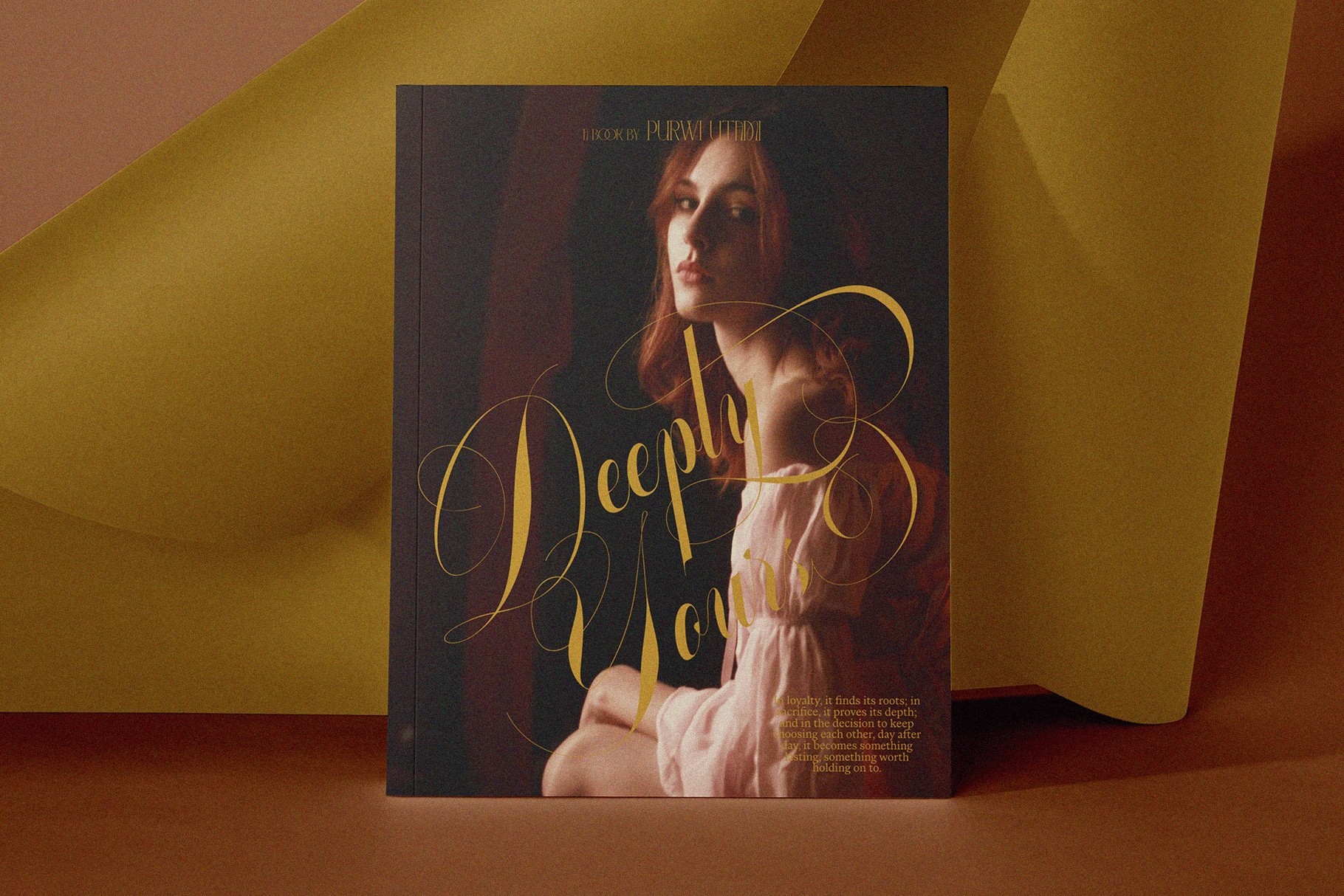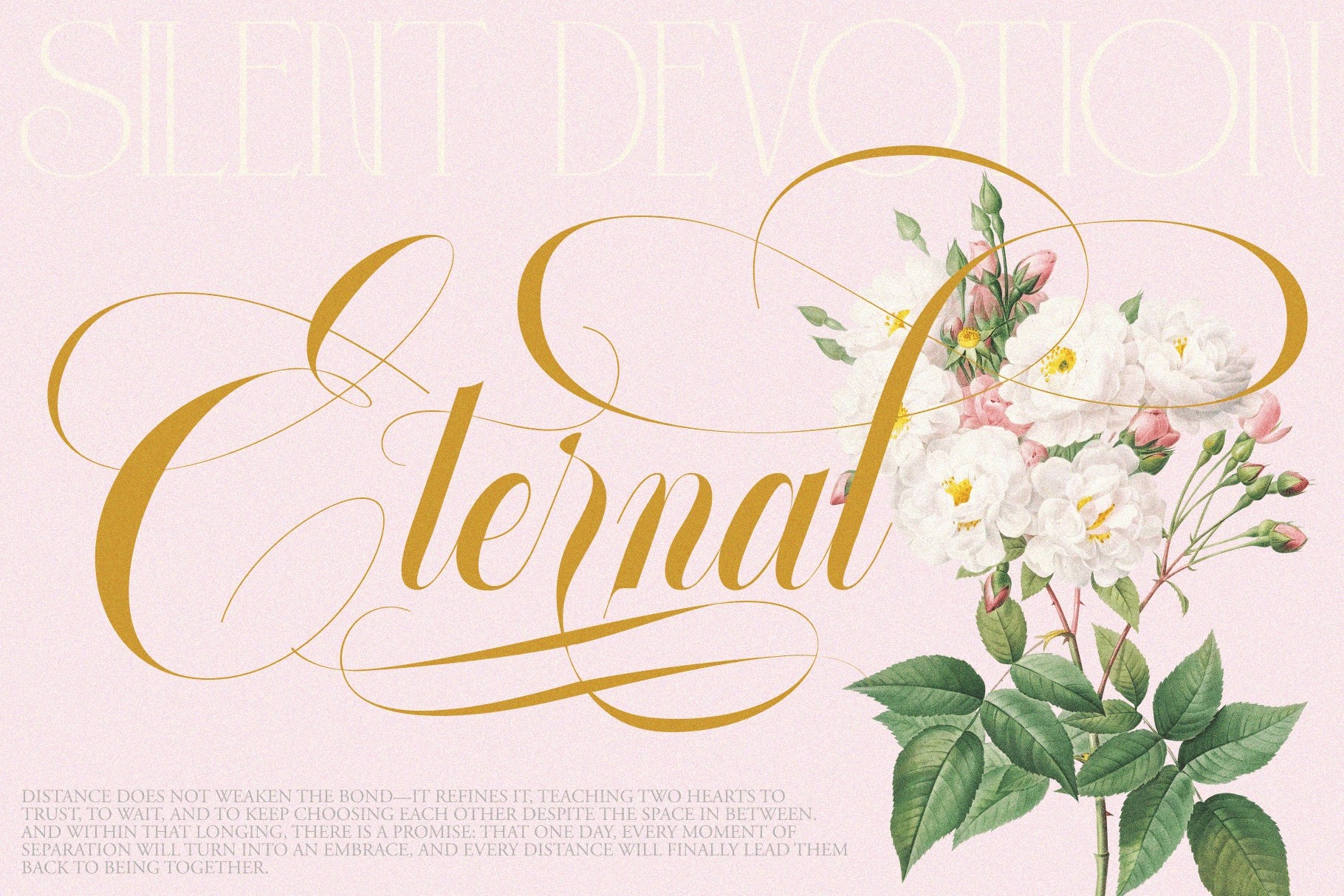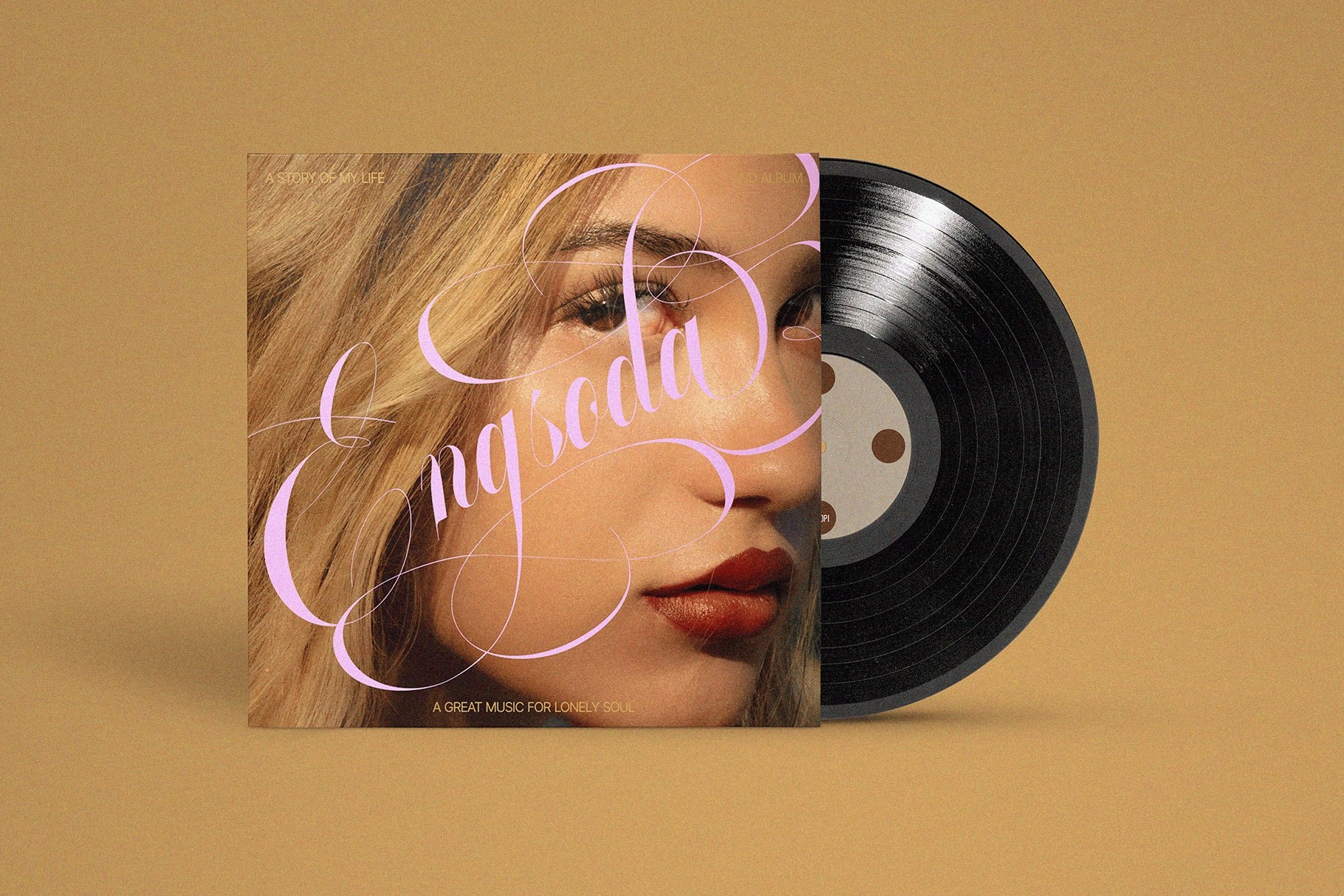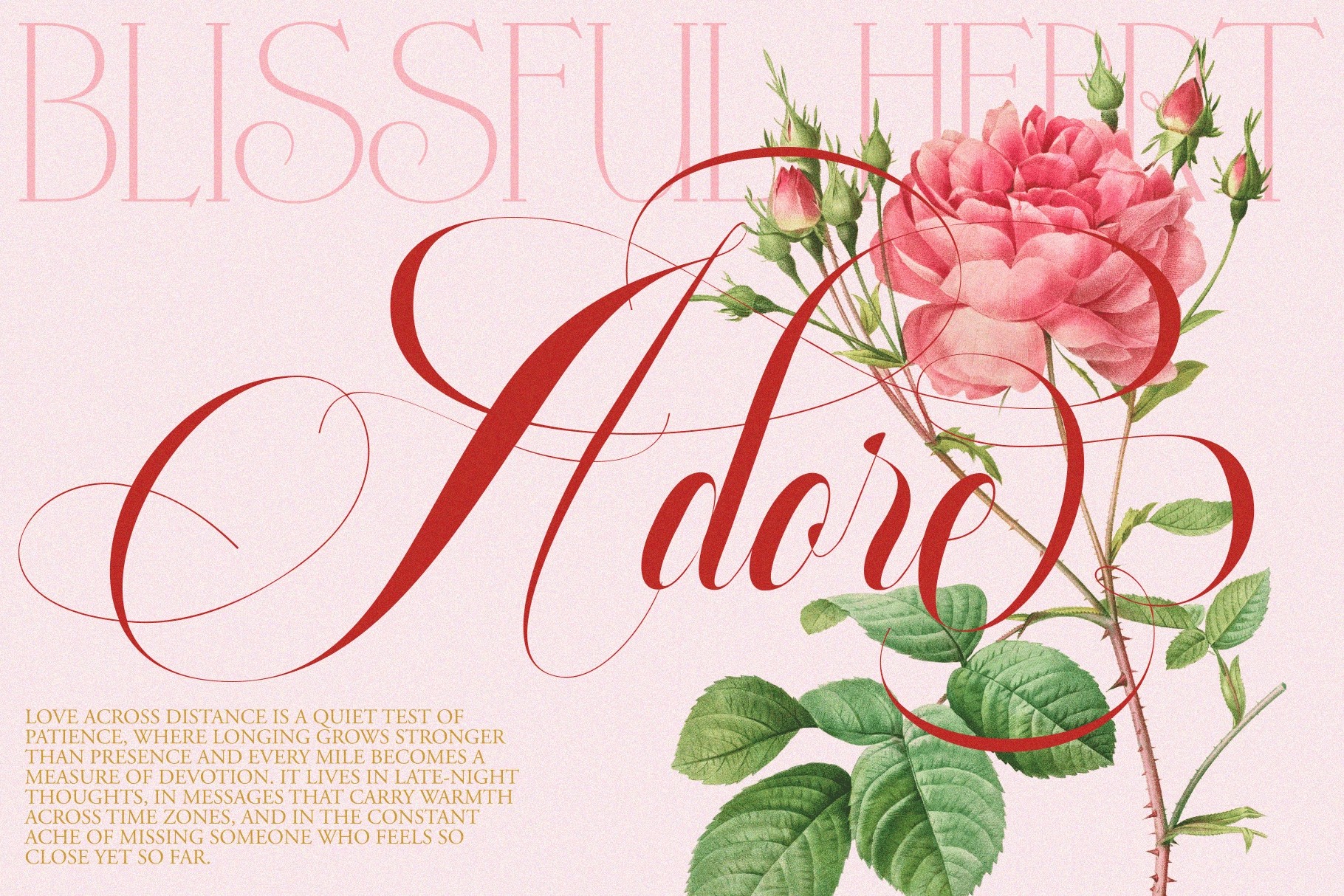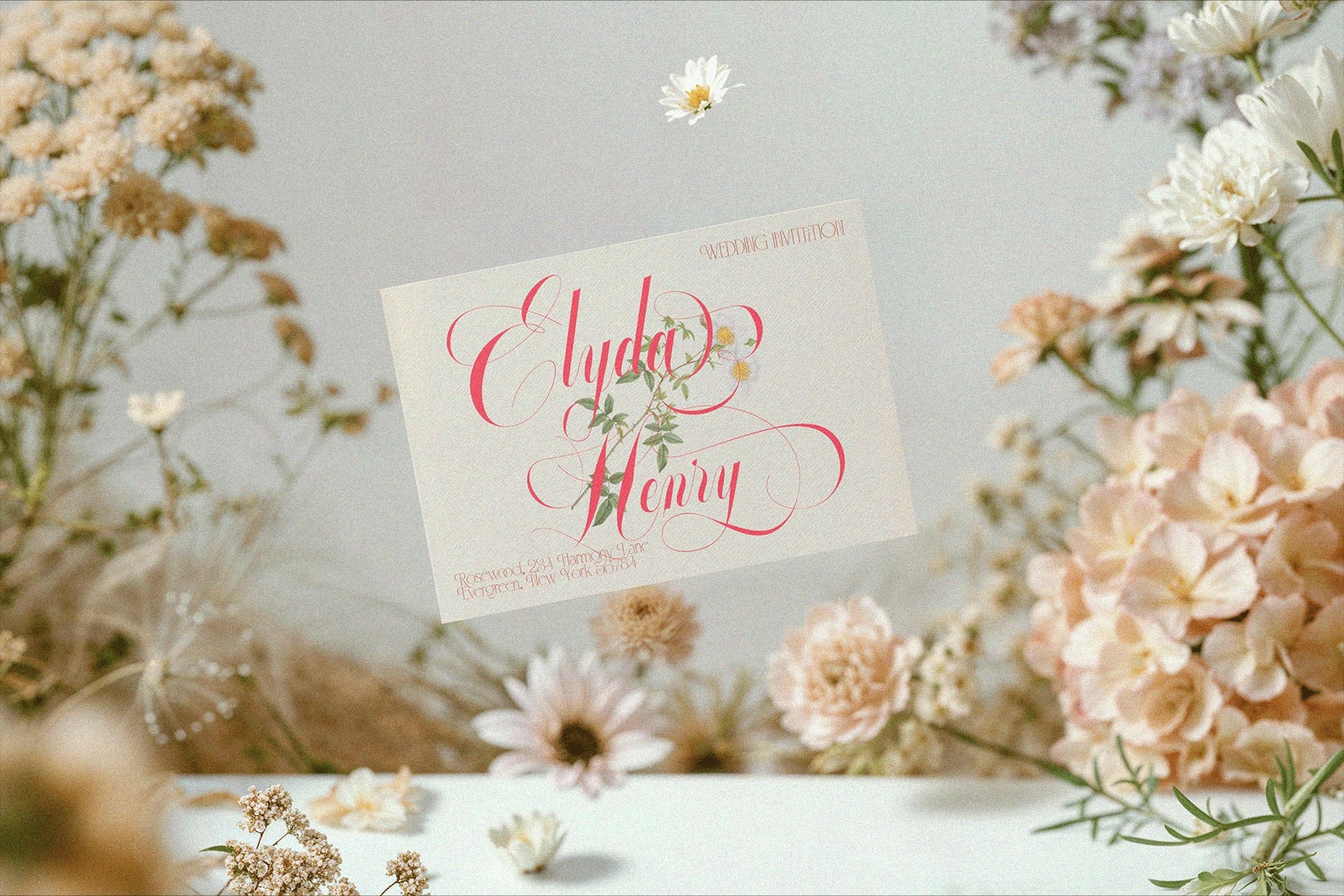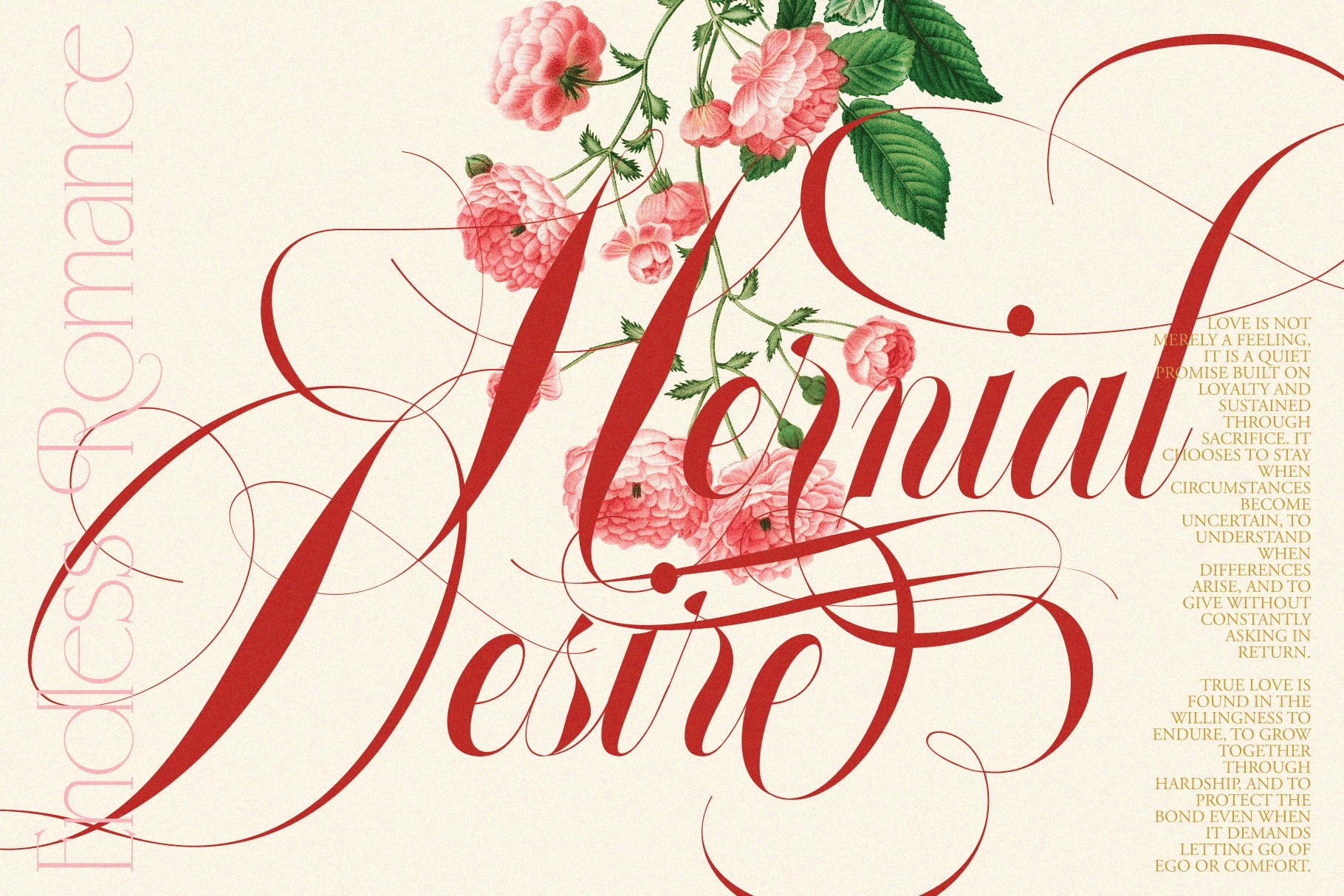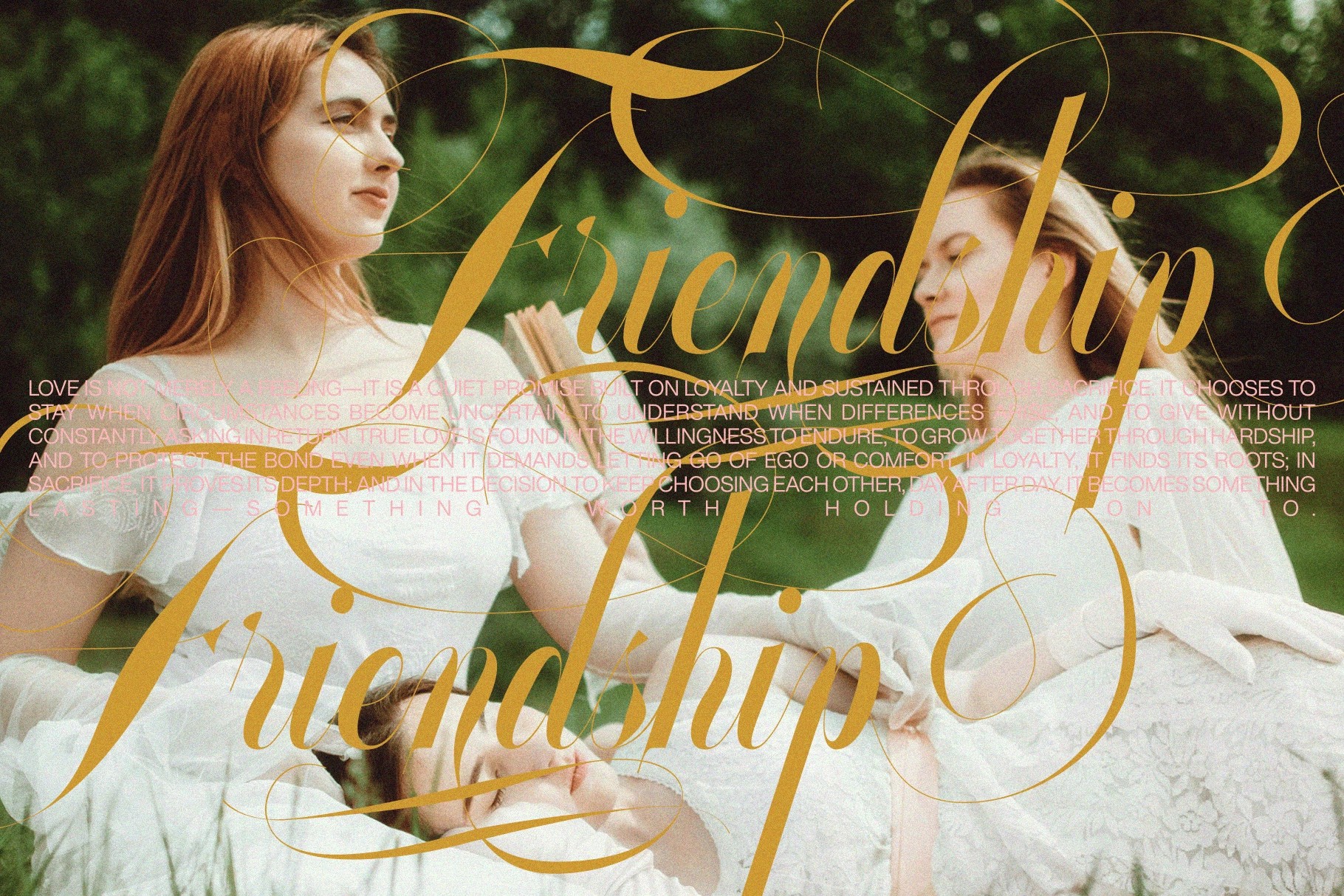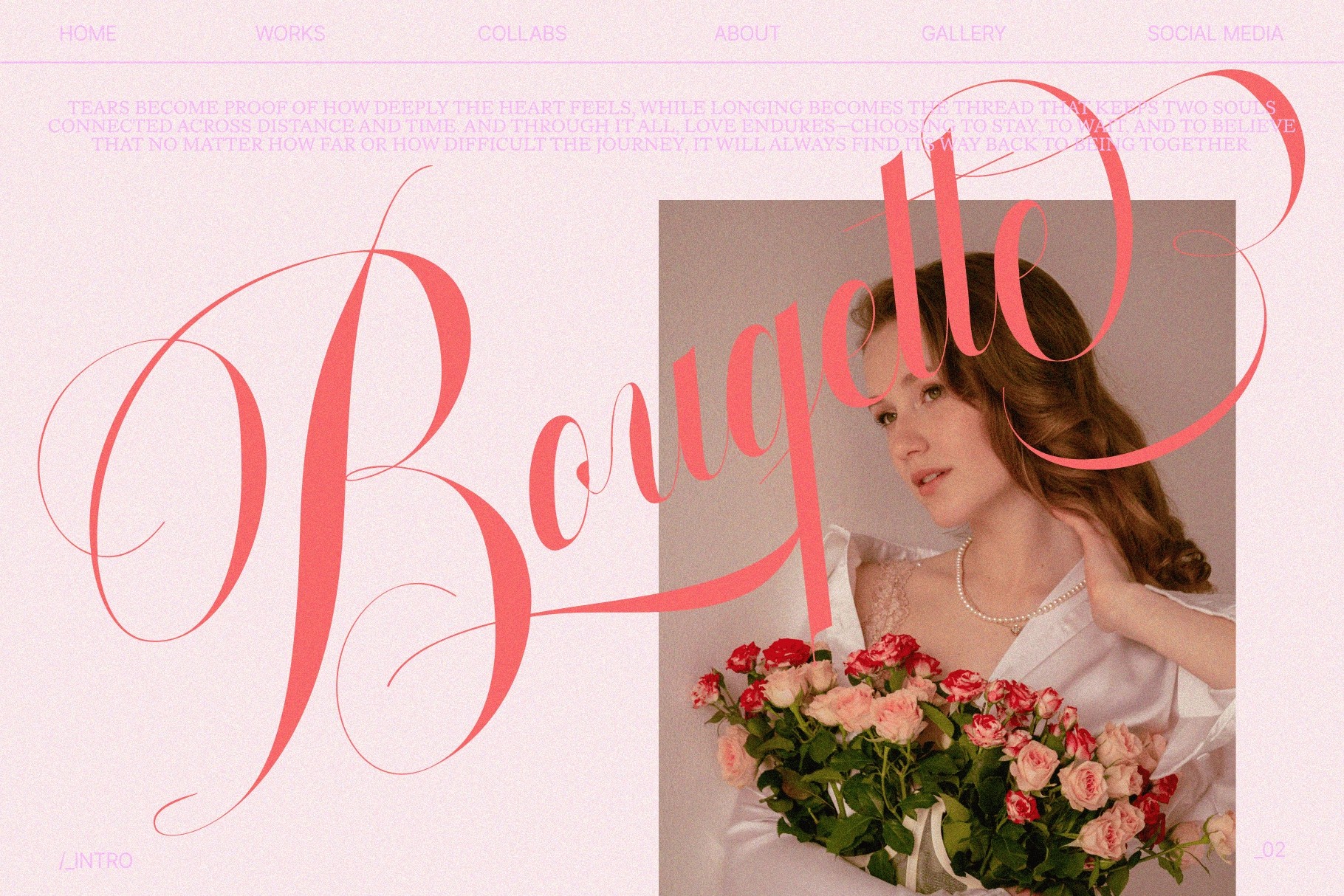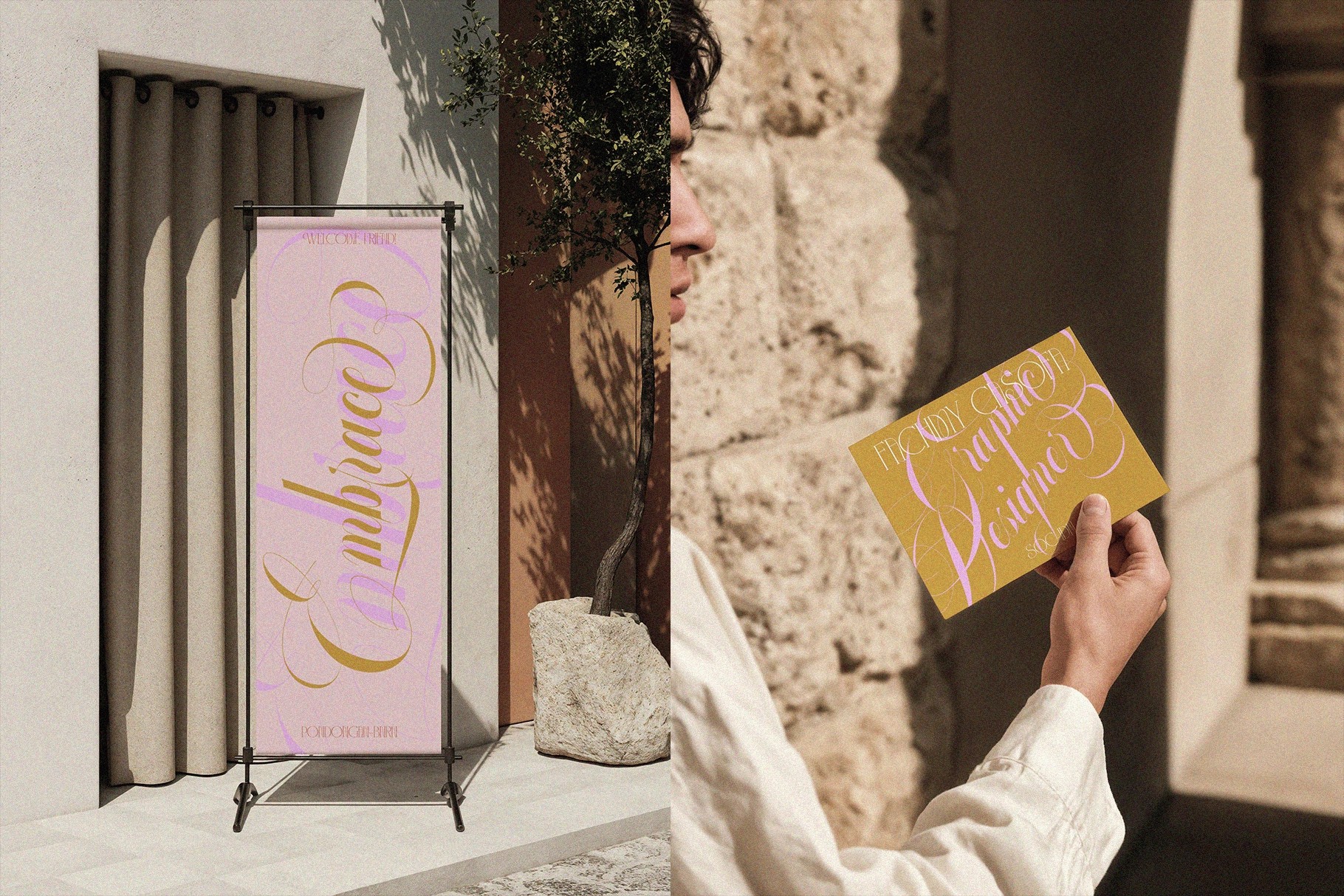
GLOWING ROMANCE — Luxury Calligraphy Font
This calligraphy typeface is ornate, romantic, and finely drawn, with sweeping swashes, delicate hairlines, and dramatic capitals made for graceful display settings. Its luxury character comes through in long flourishes, soft curves, and decorative alternates that bring ceremony to every word without making the page faint from over-dressing.
Glowing Romance is a natural fit for luxury logos, wedding invitations, bridal stationery, perfume packaging, cosmetic labels, skincare branding, boutique identity, fashion editorials, signature marks, social media quotes, premium product tags, event branding, greeting cards, and more. It is polished enough for formal design work and expressive enough to make a single word look like it has a carriage waiting outside.
- Numerals, punctuation, currencies & symbols
- Alternates, stylistic set & ligatures